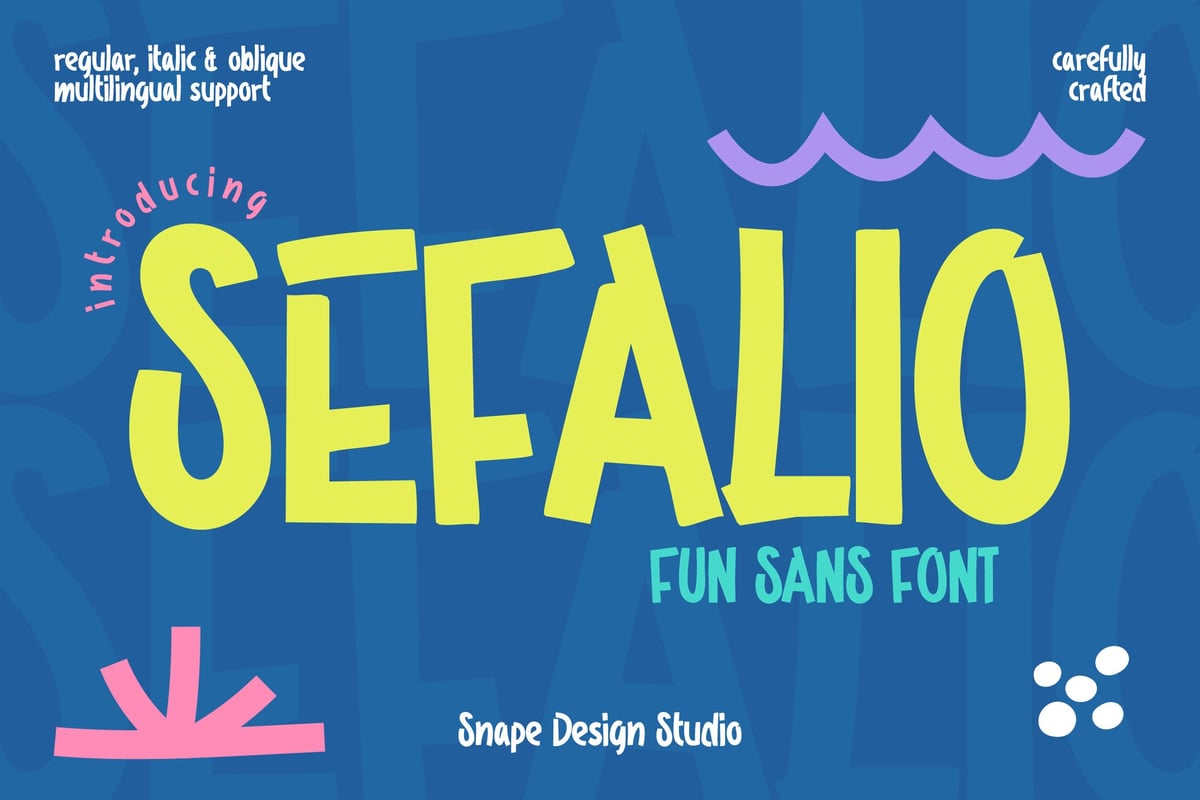
Sefalio - Fun Sans Font
SEFALIO delivers bold, playful energy that transforms ordinary text into joyful visual experiences. This fun sans serif font features a vibrant, energetic personality designed to inject excitement into your creative projects. Perfect for posters, creative branding, attention-grabbing headlines, kids' designs, social media graphics, and eye-catching editorial work. SEFALIO brings modern, friendly charm to any design that needs a dose of playful sophistication. Whether you're crafting children's m...